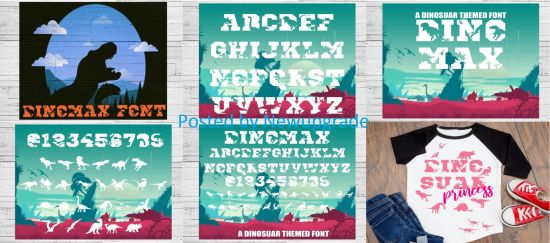
Dinomax is a bold and fantastic dinosaur-themed display font for all lovers of T-Rex, Triceratops, and Velociraptors! It’s the perfect font for all Jurassic DIY projects!